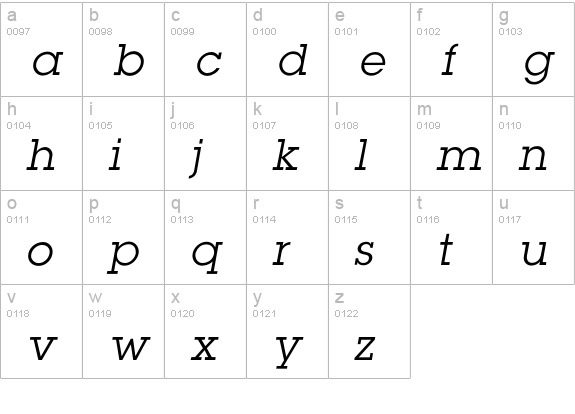
LubalinBookOblique Font Details
LubalinBookOblique font is a sophisticated and elegant typeface that exudes a sense of classic style and refinement. Its slanted design adds a dynamic and modern touch to any text, making it perfect for projects that require a combination of tradition and contemporary flair. The sleek curves and sharp angles of this font create a harmonious balance that is visually appealing and easy to read. What sets LubalinBookOblique font apart is its versatility - it can be used for a wide range of design projects, from elegant invitations to modern branding materials. Whether you're looking to elevate your website, enhance your marketing materials, or add a touch of sophistication to your printed materials, this font is sure to impress. And the best part? LubalinBookOblique font is available for free download at FontsMarket.com. This means you can easily access this premium font without breaking the bank, making it a valuable addition to your design toolkit. So why wait? Download LubalinBookOblique font today and elevate your design projects with its timeless elegance and modern appeal.